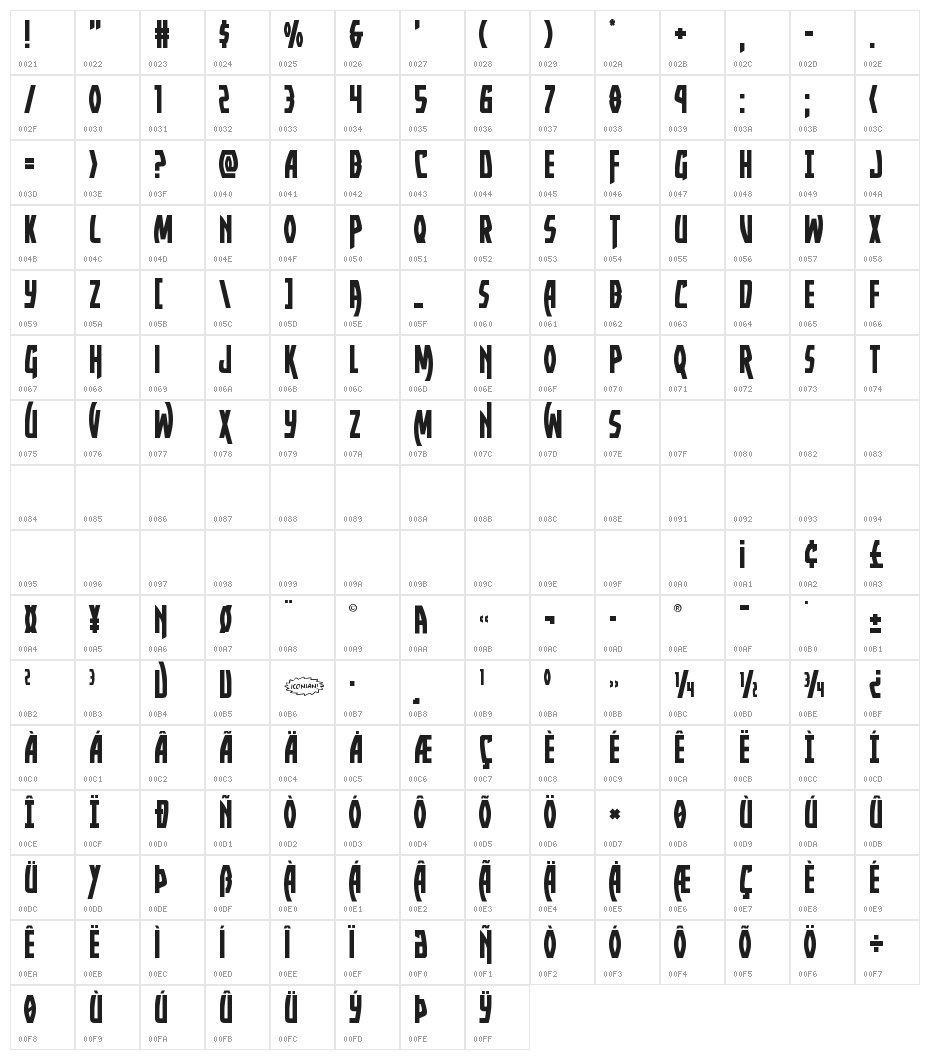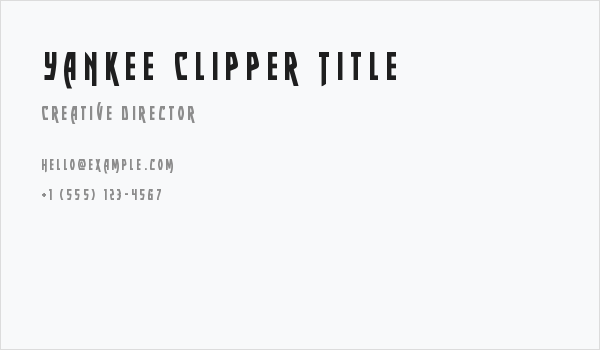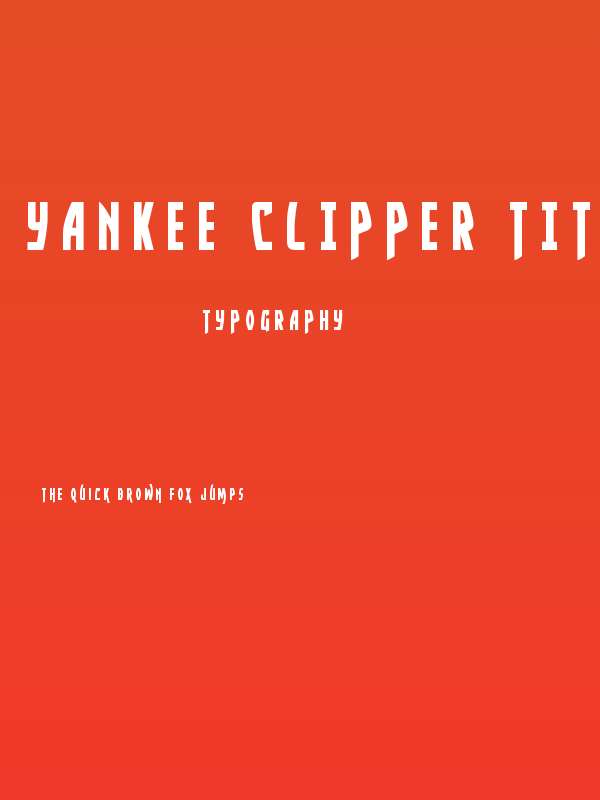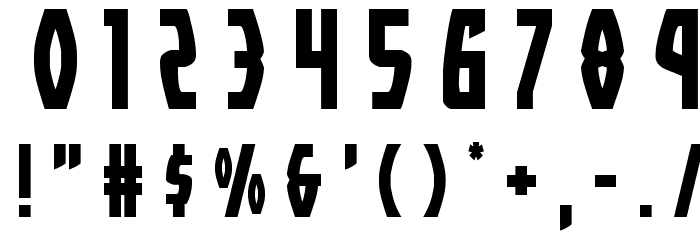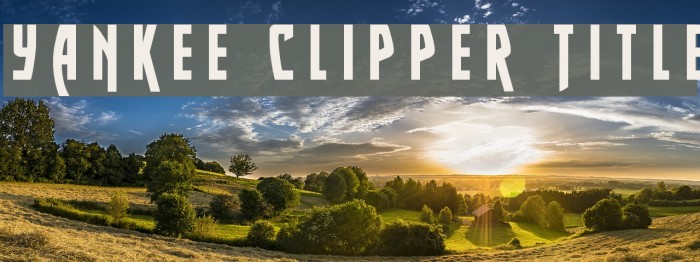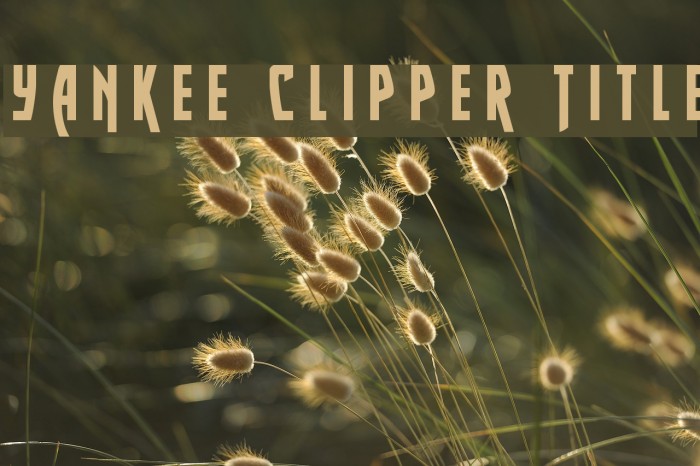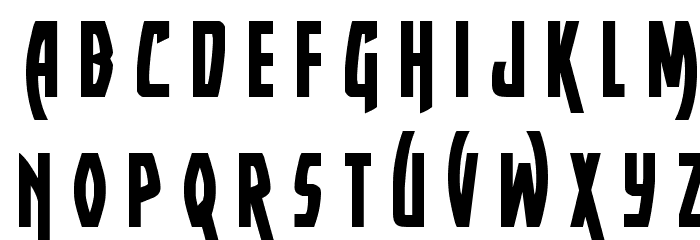
Yankee Clipper Title Font
Yankee Clipper Title Description
This font features a bold and angular design, characterized by its sharp, geometric shapes and strong presence. The uppercase and lowercase letters maintain a consistent style, with a distinct emphasis on vertical strokes and pointed edges. The numerals and special characters follow the same angular theme, creating a cohesive and striking appearance. This font is designed to capture attention and convey a sense of modernity and strength. Its unique style makes it suitable for projects that require a bold statement.
| Proposed Projects | Ideal for posters, headlines, branding, and any design needing a strong, modern impact. |